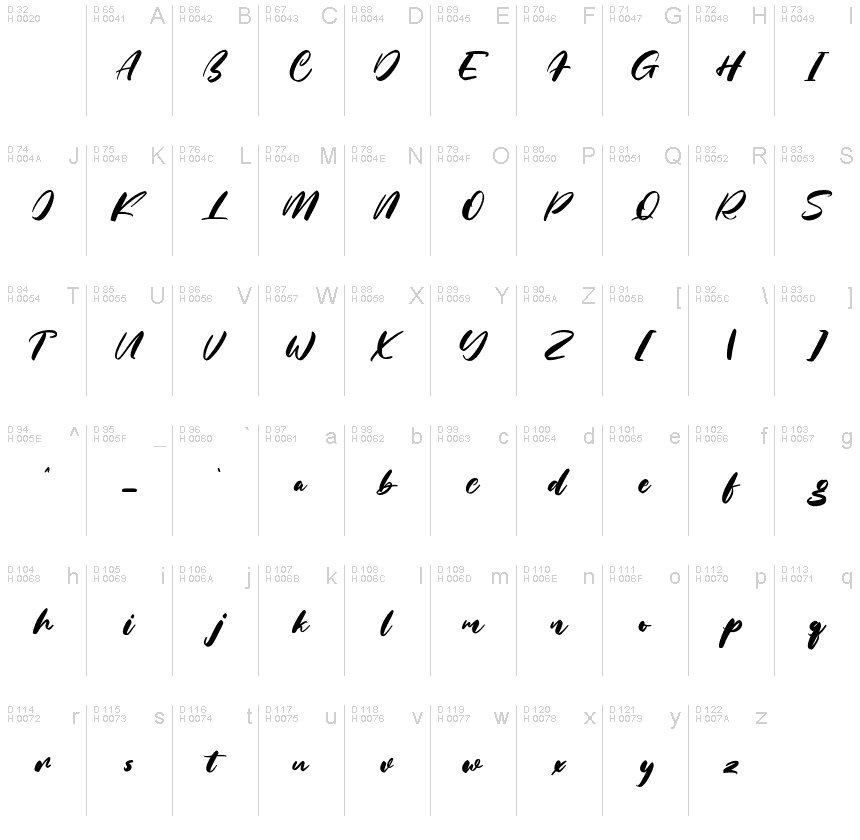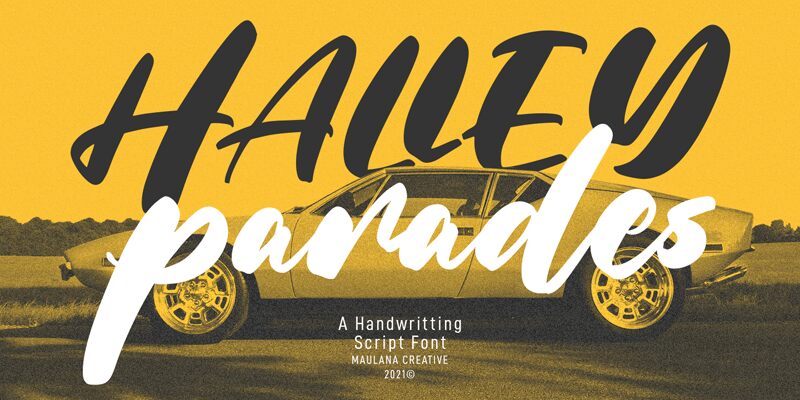
Halley Parades Script is a bold and expressive handwritten font designed by MaulanaCreative. Its bold marker style brings a vibrant energy to any project, making it perfect for eye-catching headlines, posters, and branding materials. The fluid strokes of this font give it a personal feel that's ideal for invitations, greeting cards, and other personalized designs. Whether you're creating a party flyer or crafting a logo for your business, Halley Parades Script is the perfect choice to add personality and charm to your project. This versatile font will elevate any design with its unique flair and boldness!